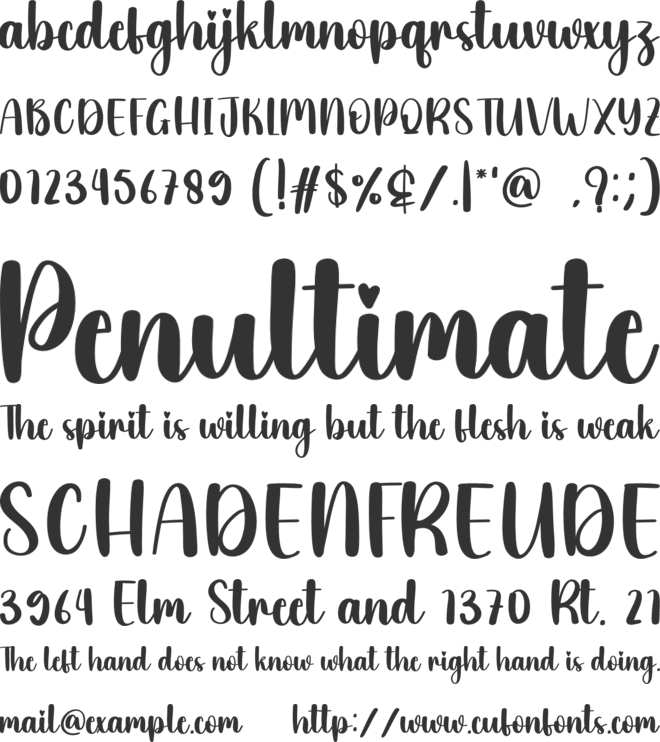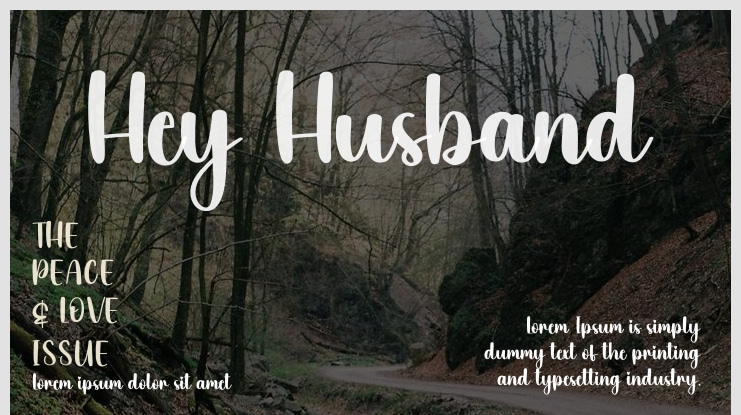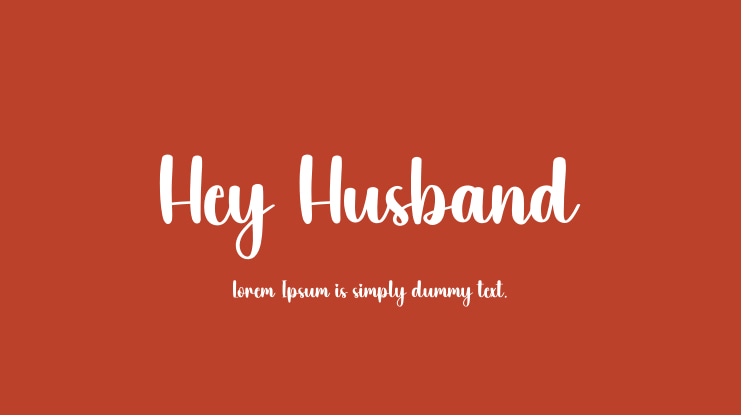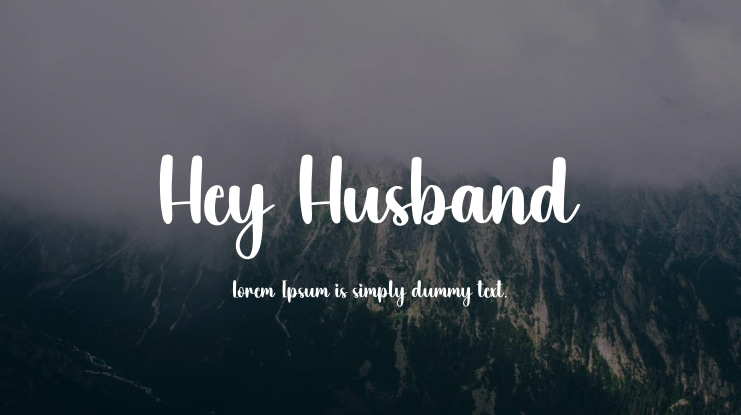
Our latest collection of stylish fonts is perfect for various purposes such as wall displays, wedding invitations, social media post logos, advertisements, product packaging, labels, photography, watermarks, invitations, stationery, and any project that requires elegant handwriting.